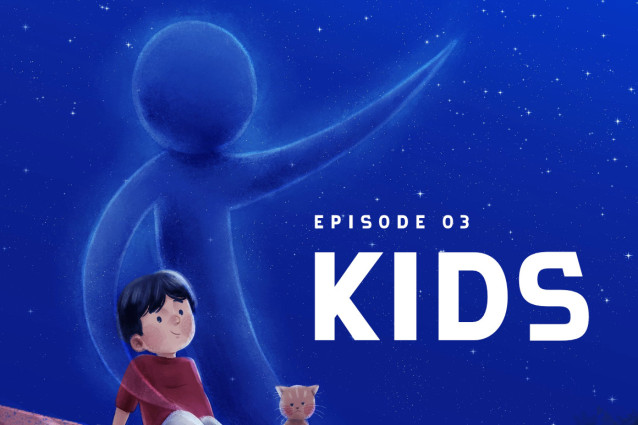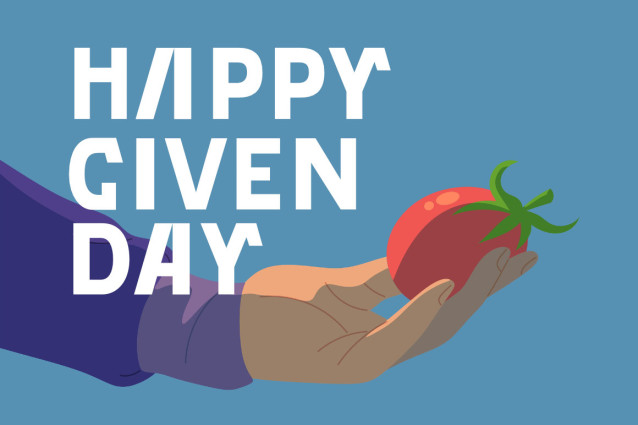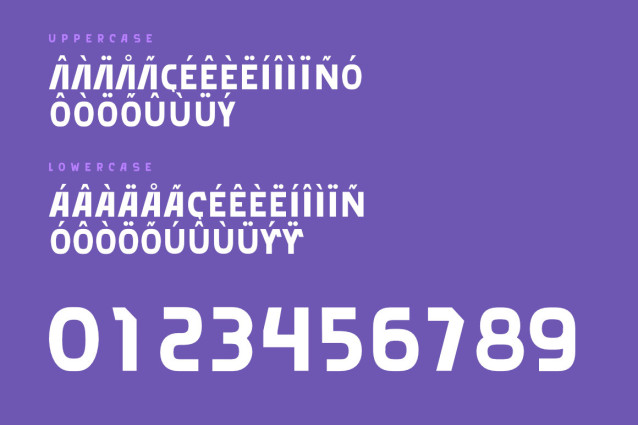
Fyplogo Font
Fyplogo Font is a sans serif font with a techno vibe. This font is perfect for anything related to technology, from electronics, cars, robots, new discoveries, to anything related to the solar system.